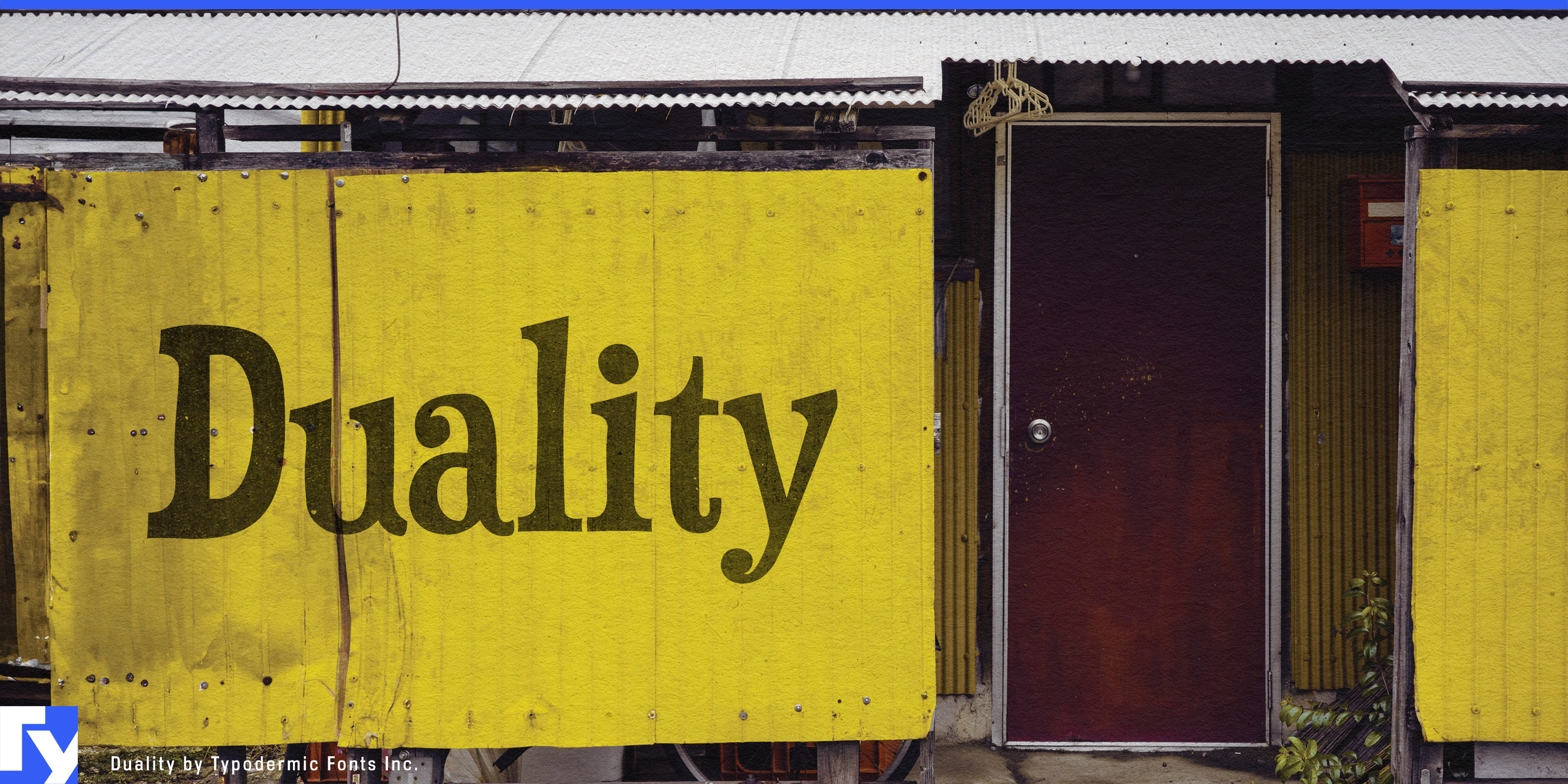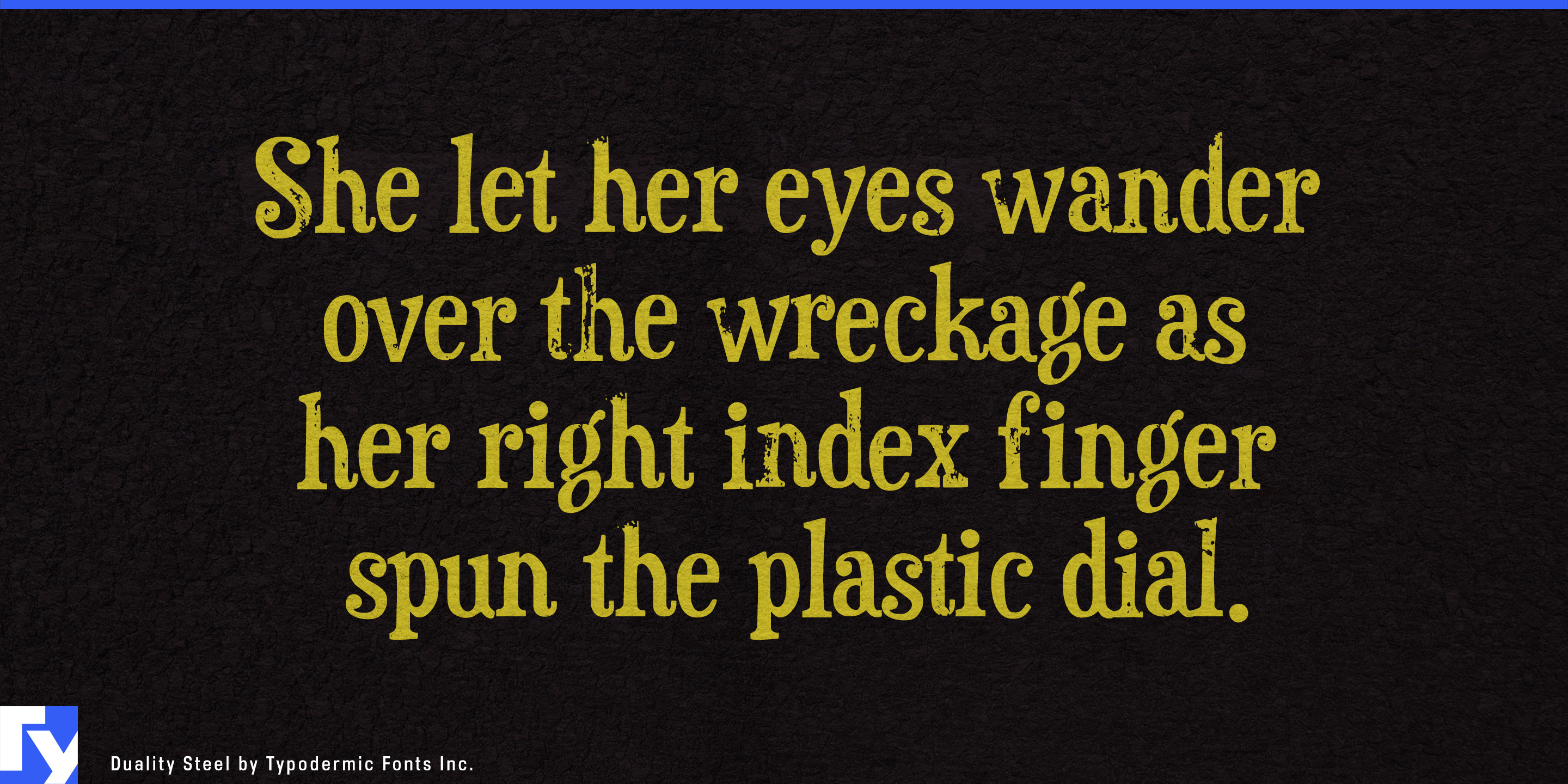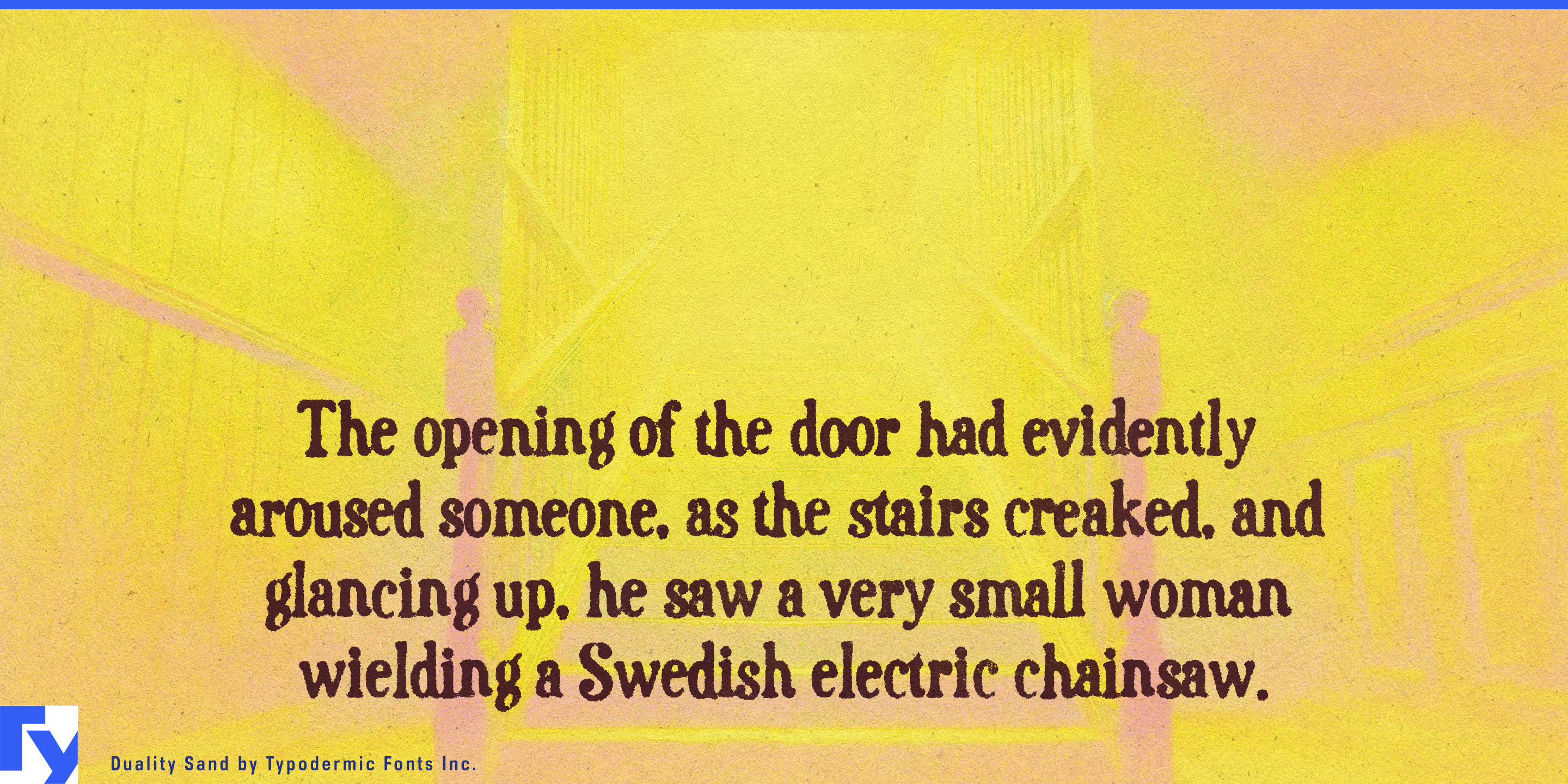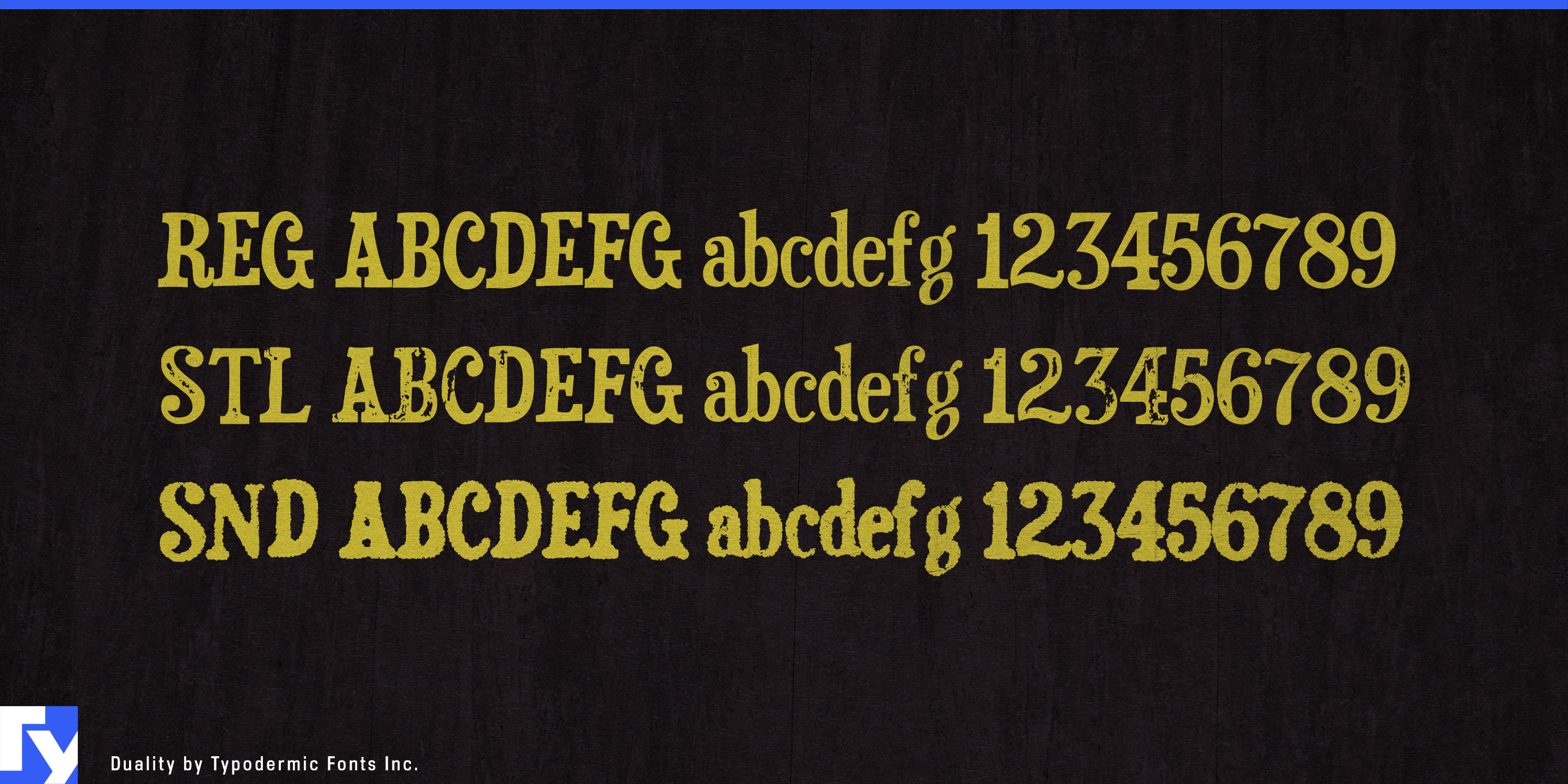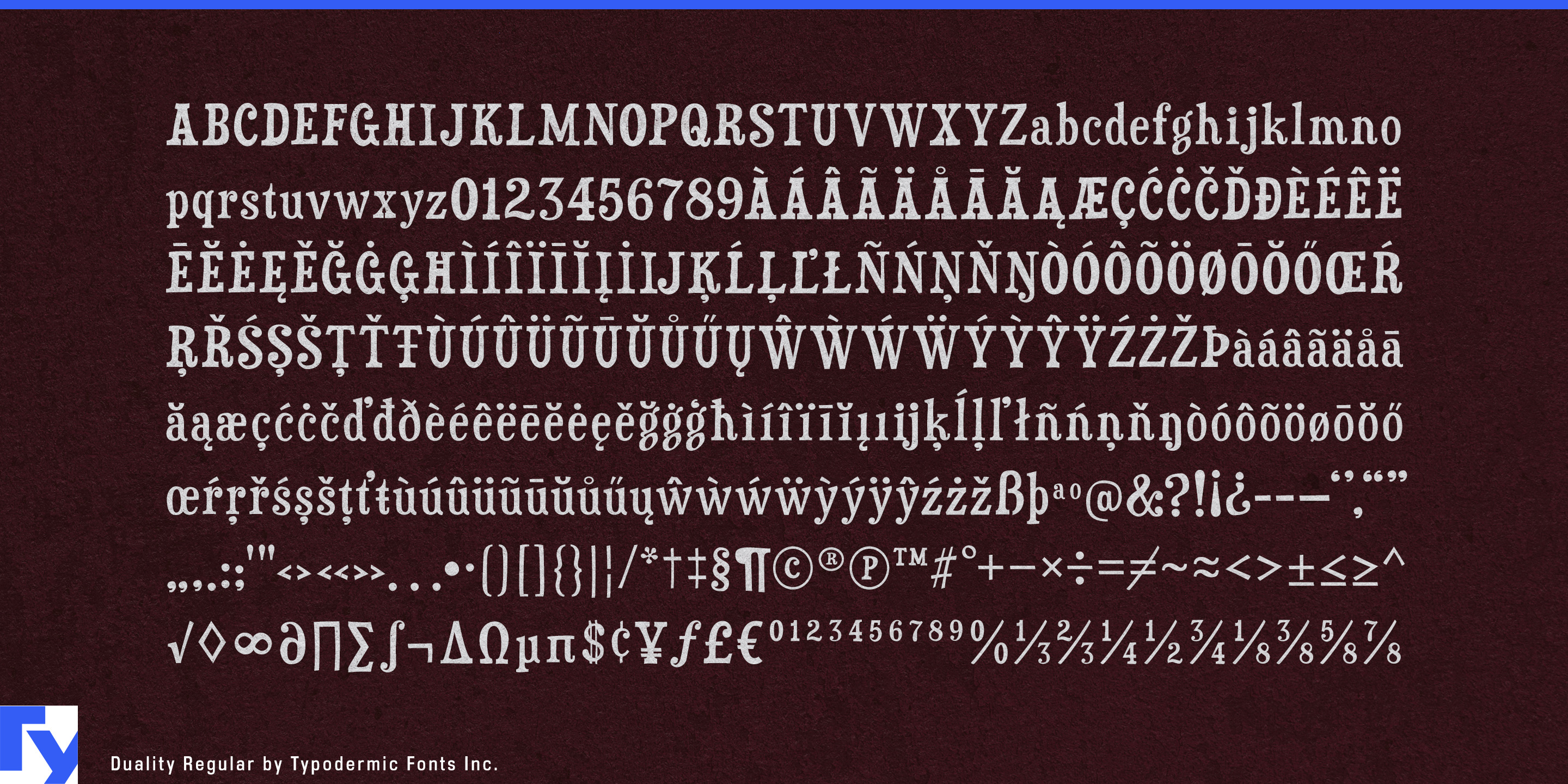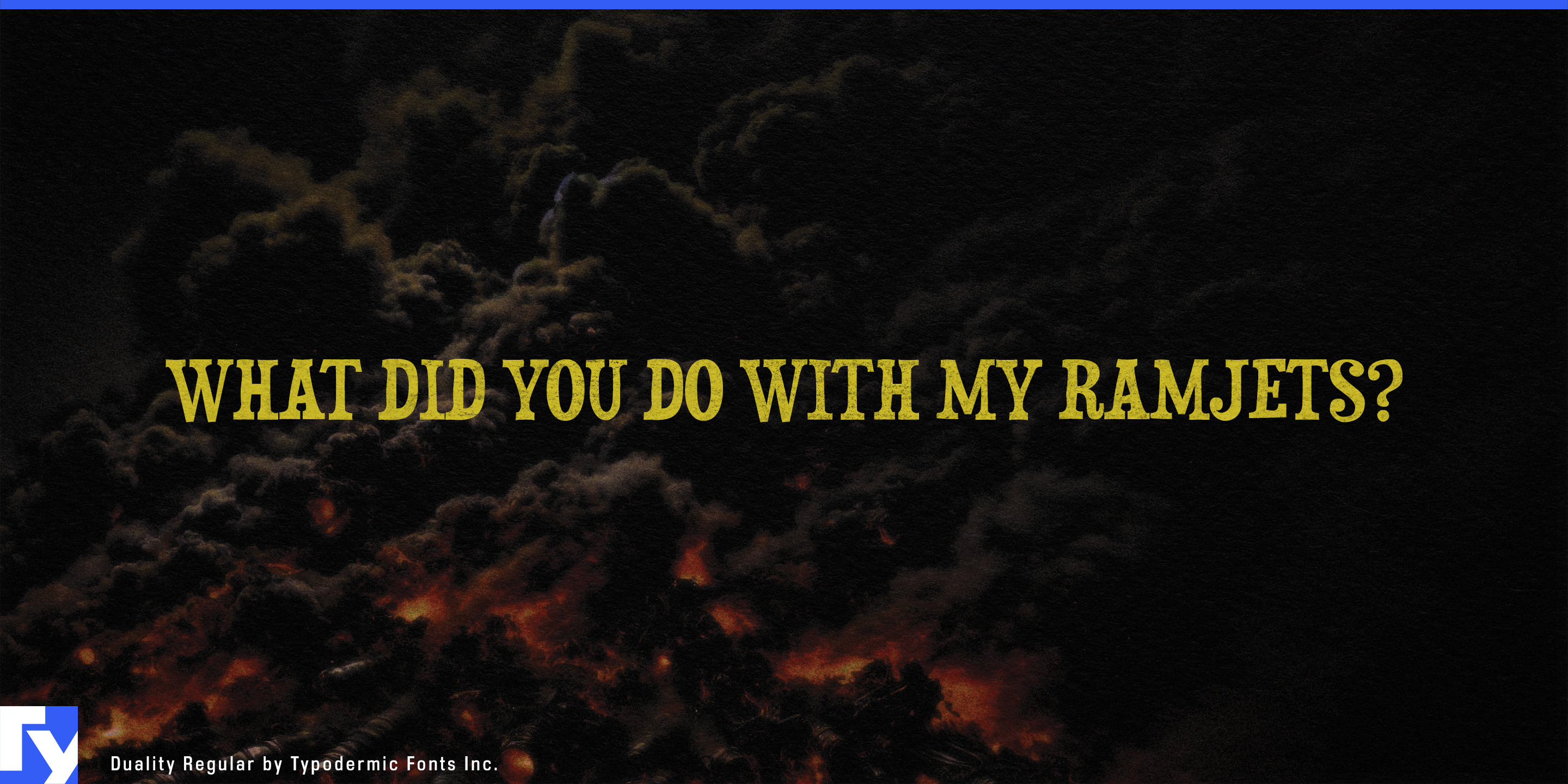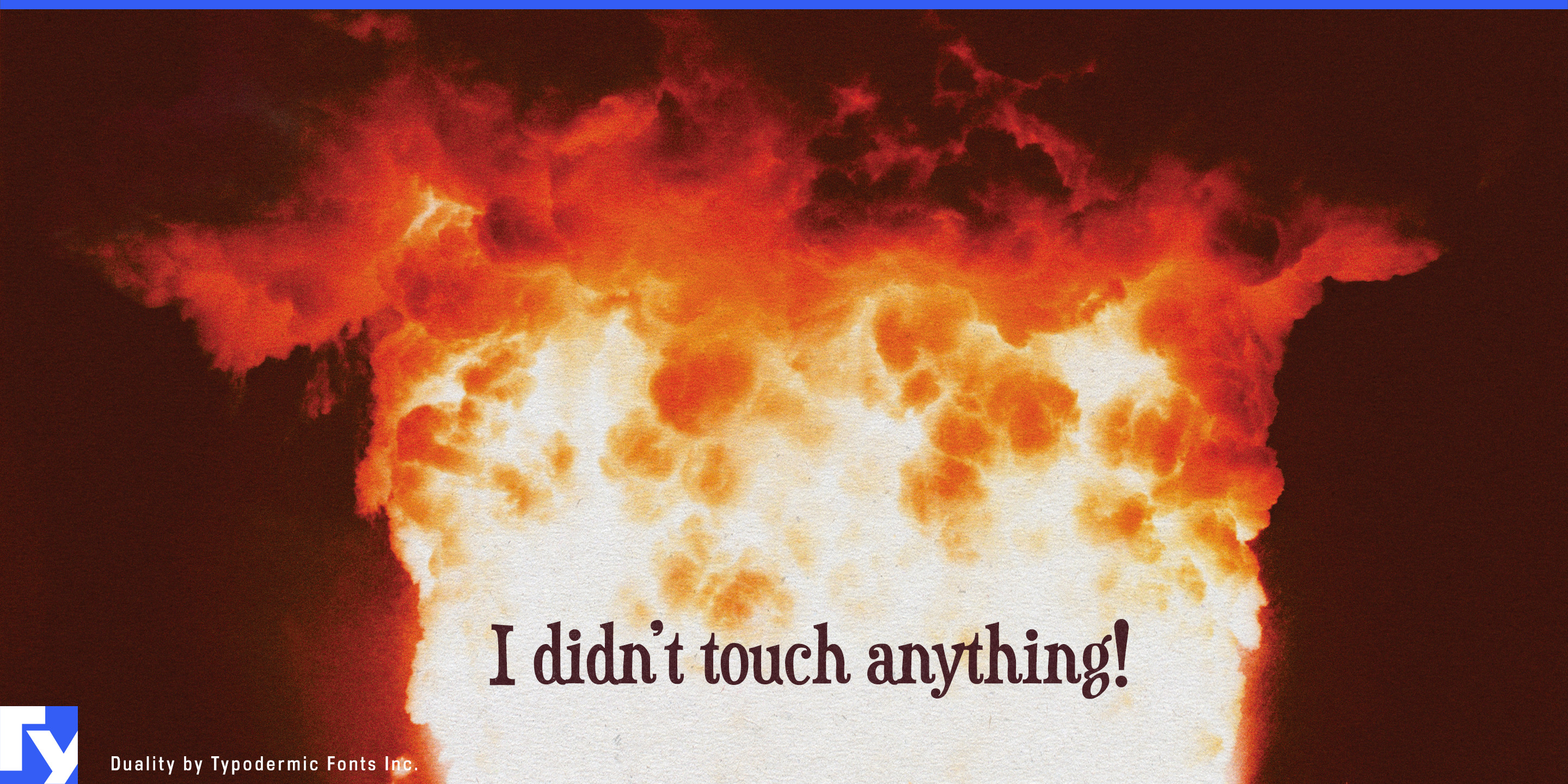
Duality is a tough, condensed display typeface with an eccentric personality. Its wild slab-serifs and insane ball-terminals will add a genuinely unique flair to your message. Duality is available in three different styles: Regular, gritty Sand, and letterpress Steel. Most Latin-based European writing systems are supported, including the following languages. Afaan Oromo, Afar, Afrikaans, Albanian, Alsatian, Aromanian, Aymara, Bashkir (Latin), Basque, Belarusian (Latin), Bemba, Bikol, Bosnian, Breton, Cape Verdean, Creole, Catalan, Cebuano, Chamorro, Chavacano, Chichewa, Crimean Tatar (Latin), Croatian, Czech, Danish, Dawan, Dholuo, Dutch, English, Estonian, Faroese, Fijian, Filipino, Finnish, French, Frisian, Friulian, Gagauz (Latin), Galician, Ganda, Genoese, German, Greenlandic, Guadeloupean Creole, Haitian Creole, Hawaiian, Hiligaynon, Hungarian, Icelandic, Ilocano, Indonesian, Irish, Italian, Jamaican, Kaqchikel, Karakalpak (Latin), Kashubian, Kikongo, Kinyarwanda, Kirundi, Kurdish (Latin), Latvian, Lithuanian, Lombard, Low Saxon, Luxembourgish, Maasai, Makhuwa, Malay, Maltese, Māori, Moldovan, Montenegrin, Ndebele, Neapolitan, Norwegian, Novial, Occitan, Ossetian (Latin), Papiamento, Piedmontese, Polish, Portuguese, Quechua, Rarotongan, Romanian, Romansh, Sami, Sango, Saramaccan, Sardinian, Scottish Gaelic, Serbian (Latin), Shona, Sicilian, Silesian, Slovak, Slovenian, Somali, Sorbian, Sotho, Spanish, Swahili, Swazi, Swedish, Tagalog, Tahitian, Tetum, Tongan, Tshiluba, Tsonga, Tswana, Tumbuka, Turkish, Turkmen (Latin), Tuvaluan, Uzbek (Latin), Venetian, Vepsian, Võro, Walloon, Waray-Waray, Wayuu, Welsh, Wolof, Xhosa, Yapese, Zapotec Zulu and Zuni.